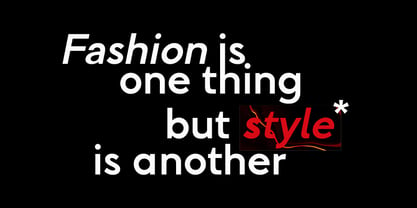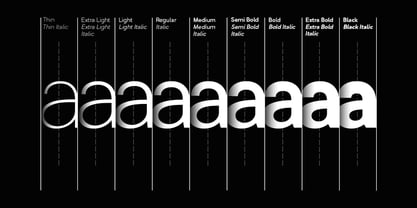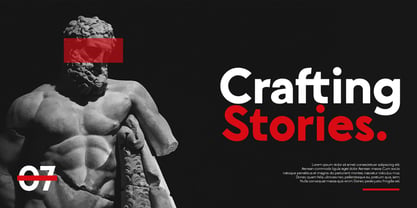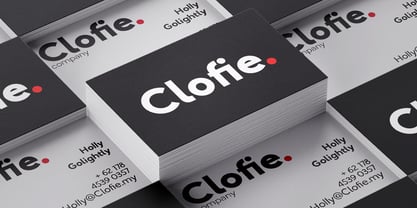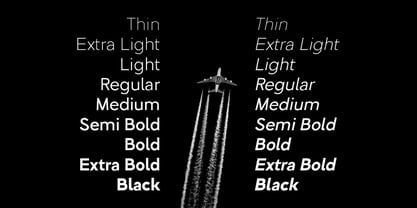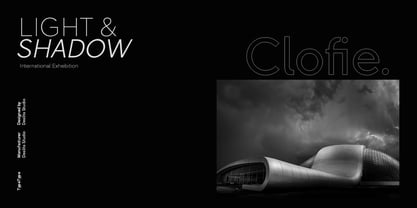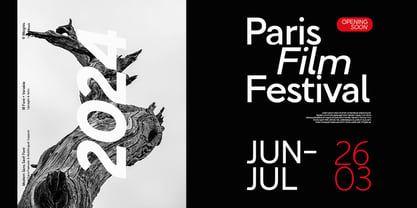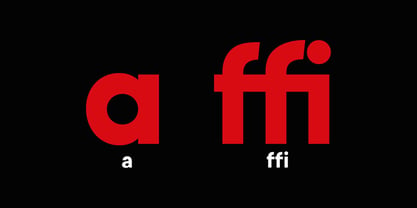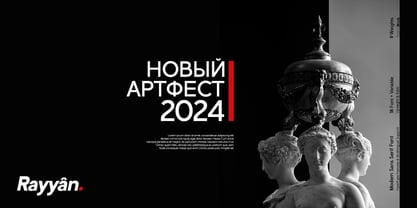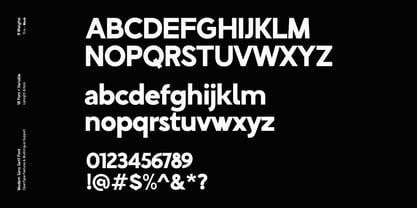
Clofie
by Dealita Studio
The Clofie Font Family was designed by Januar Rahim and published by Dealita Studio. Clofie contains 18 styles and family package options. More about this family
Clofie is a clean, Modern Variable Sans-serif font designed for designers who value minimalism and precision. With its neutral elegance and cutting-edge variable font technology, Clofie adapts seamlessly to any branding project — from tech startups to lifestyle brands and digital identities. Crafted for unmatched versatility, Clofie features smooth weight transitions, allowing you to fluidly adjust the weight from Thin to Black (including italics). This makes it perfect for responsive design, UI/UX projects, and complex branding systems that require flexibility without sacrificing file size. Whether you’re designing a sleek website, a mobile app, or a modern logo, Clofie delivers clarity and sophistication without distraction.
Designers: Januar Rahim
Foundry: Dealita Studio